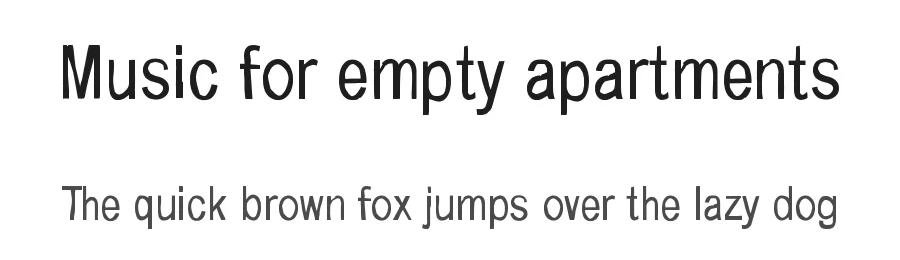
About Kalenderblatt Grotesk Font
Kalenderblatt Grotesk is a decorative font designed by Dieter Steffmann. It includes 93 glyphs, a regular weight, TTF (TrueType) format, and 106 languages. Kalenderblatt Grotesk is free to download; check the license details on this page before commercial use. Decorative fonts like Kalenderblatt Grotesk work best for logos, posters, packaging, and standout headlines.
Kalenderblatt Grotesk Font is a decorative font that shines as a display or heading face. Pair it with a clean sans-serif or serif font for body text β the contrast creates a clear hierarchy while the two styles stay balanced and easy to read.
Kalenderblatt Grotesk Font
Kalenderblatt Grotesk Font is a decorative typeface by Dieter Steffmann, ideal for logos, invitations, branding, and creative projects.